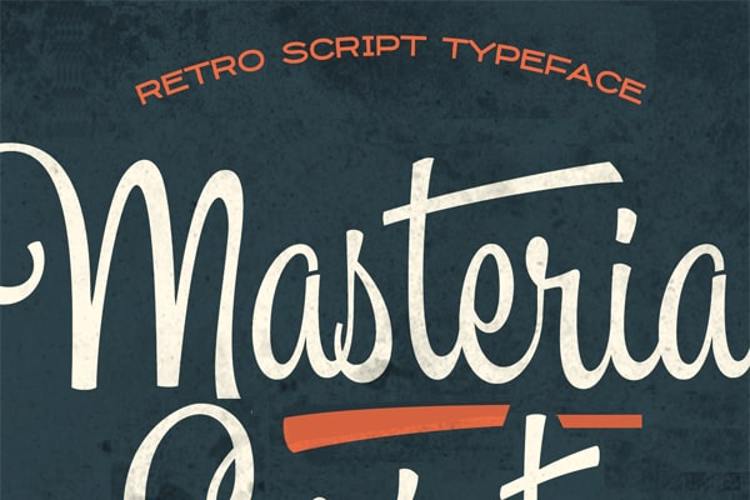
Masteria Script Font
About Masteria Script Font
Use underscore _ to make a swash.
Example: Mast_eria
Use multiple underscores to make a longer swash.
Example: Super___human